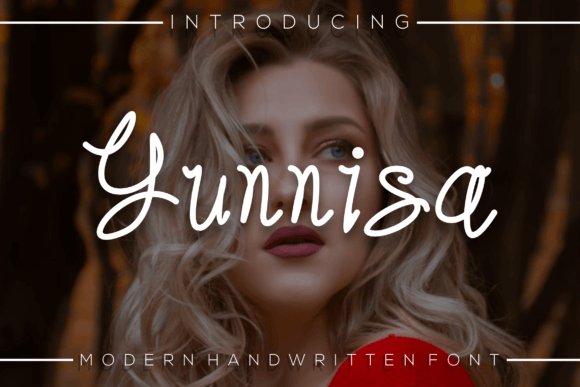
Unleash the Alluring Charm of Yunnisa Font: A Symphony of Elegance for Your Creative Endeavors
In the realm of typography, where words dance and stories unfold, lies a font that captivates the senses and ignites the imagination—Yunnisa Font. This modern and cool handwritten font, crafted with meticulous attention to detail, is a masterpiece that transforms your creative visions into breathtaking realities.
Yunnisa Font: A Timeless Treasure for Design Aficionados
With its graceful strokes and elegant curves, Yunnisa Font embodies the essence of sophistication and timeless beauty. Its meticulously crafted characters, reminiscent of a skilled calligrapher's hand, lend an air of refinement and charm to any design. Whether you're crafting logos, designing brochures, or creating eye-catching social media graphics, Yunnisa Font is your trusted companion, guiding you towards design excellence.
A Versatile Chameleon in the World of Design
Yunnisa Font's versatility is a testament to its adaptability and boundless potential. It seamlessly blends with a myriad of design styles, from classic and traditional to contemporary and edgy. Its characters dance harmoniously with images and elements, creating a cohesive and captivating visual experience that leaves a lasting impression.
The Perfect Font for Magazine Masterpieces
If you're a magazine designer seeking to elevate your publication to new heights, Yunnisa Font is your secret weapon. Its ability to effortlessly convey emotions and create a captivating reading experience is unmatched. Each letter, meticulously crafted, draws the reader into the story, leaving them spellbound and eager for more.
Unleash Your Creativity with Yunnisa Font
Yunnisa Font is more than just a font; it's a gateway to unleashing your creative potential. Its enchanting aura inspires you to think outside the box, to explore new design possibilities, and to create works of art that captivate and enchant. With Yunnisa Font as your creative muse, there are no limits to what you can achieve.